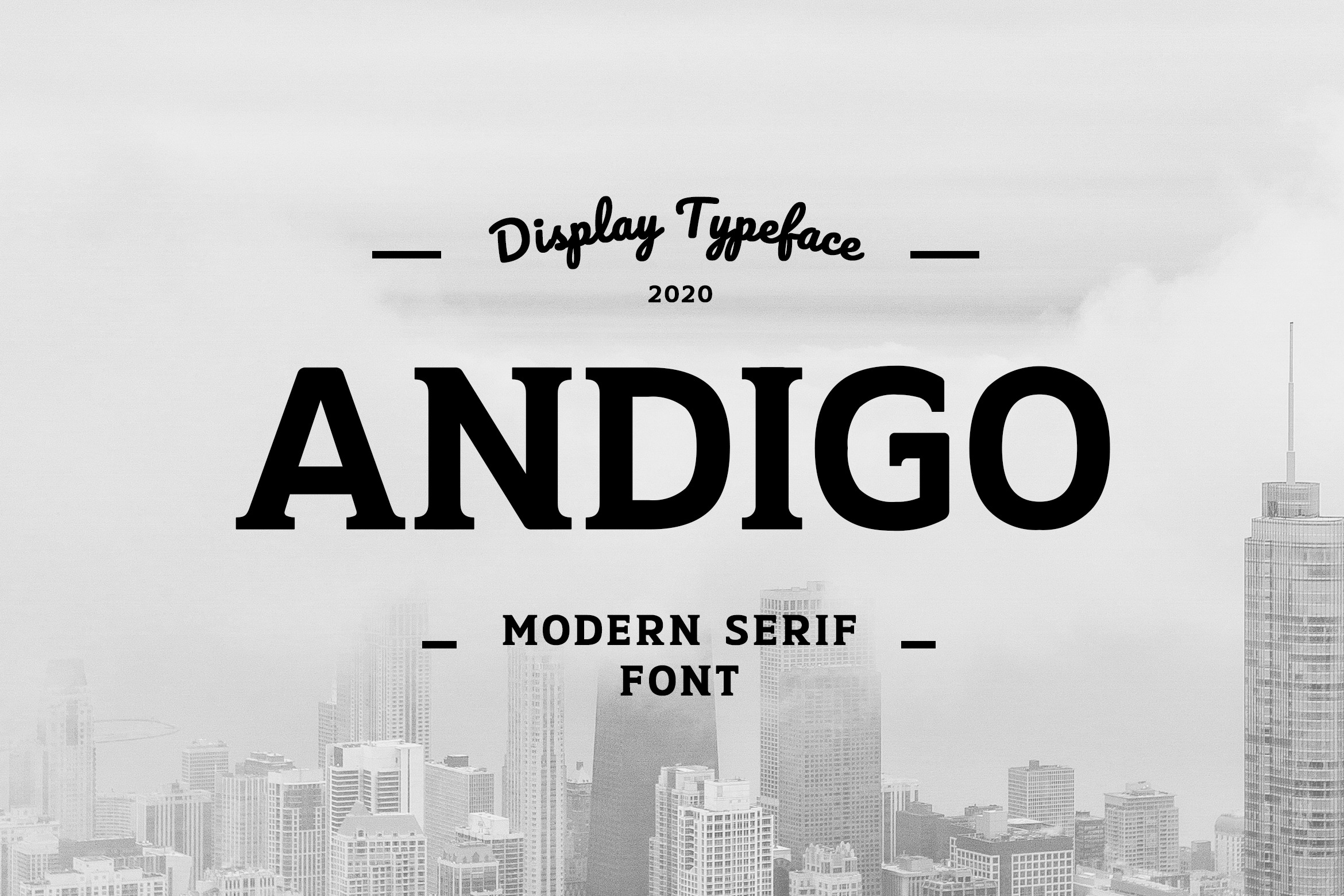
Andigo Display Serif Font
Andigo is a serif font that combines classic style fonts moderated with a touch of minimalist design, produces beautiful and elegant fonts, and is supported by ligatures and more font substitutes with all characters brought in will make you explore your design style more easily, with various alternative styles that allow for logos, posters, covers, main packaging, t-shirts, business cards, wedding cards and more, so what are you waiting for?